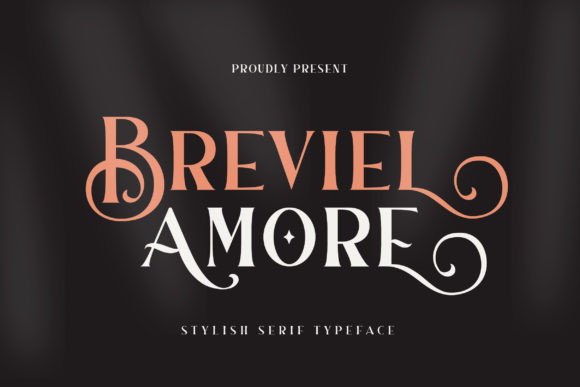
Looking for the best font to make your contest poster stand out? Look no further than Breviel Amore Font, the stunning and elegant serif font designed by Bellinghamtype.
With its slender, tapered serifs and balanced letterforms, Breviel Amore exudes sophistication and refinement. This timeless font is perfect for high-end branding, editorial layouts, and other refined designs, making it the go-to choice for designers who want to elevate their work to the next level.
One of the standout features of Breviel Amore is its PUA encoding, which allows you to access all of its glyphs and swashes with ease. This means that you can create truly unique designs that stand out from the crowd.
But Breviel Amore is more than just a beautiful font – it's also incredibly versatile. Whether you're working on a fashion editorial, a luxury brand campaign, or a wedding invitation, this font has the flexibility and elegance to bring your vision to life.